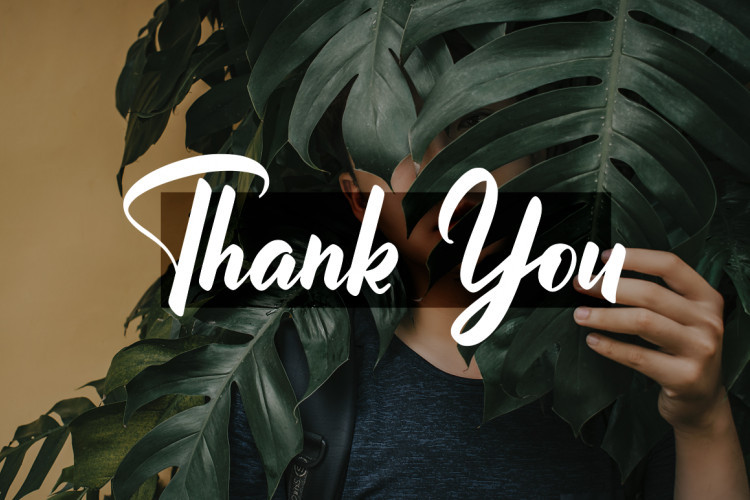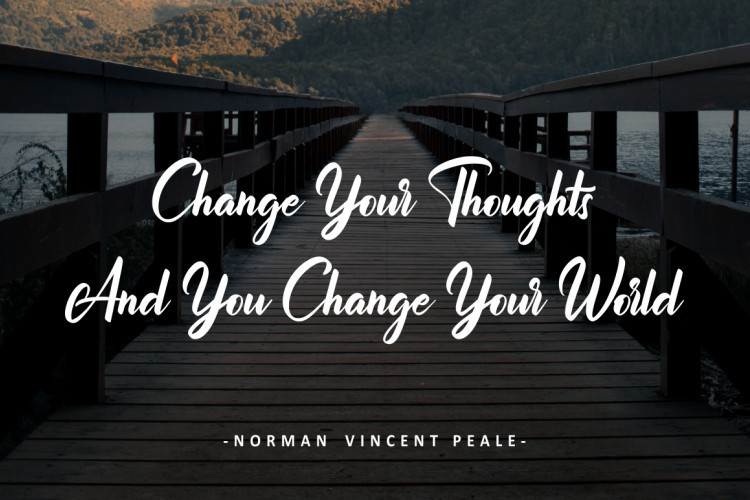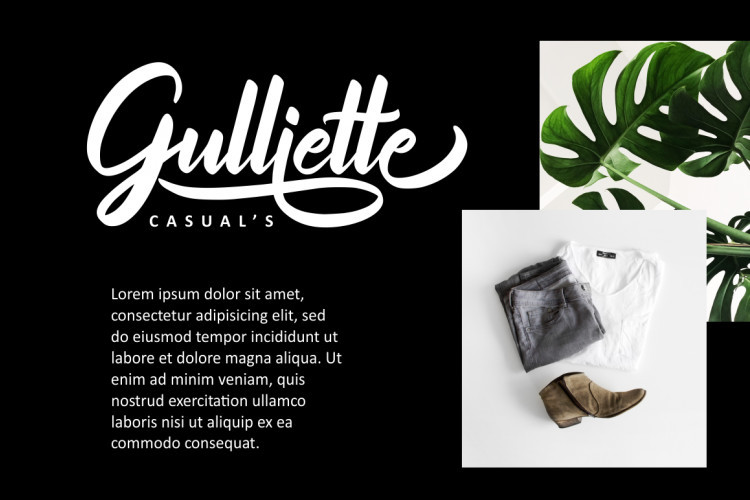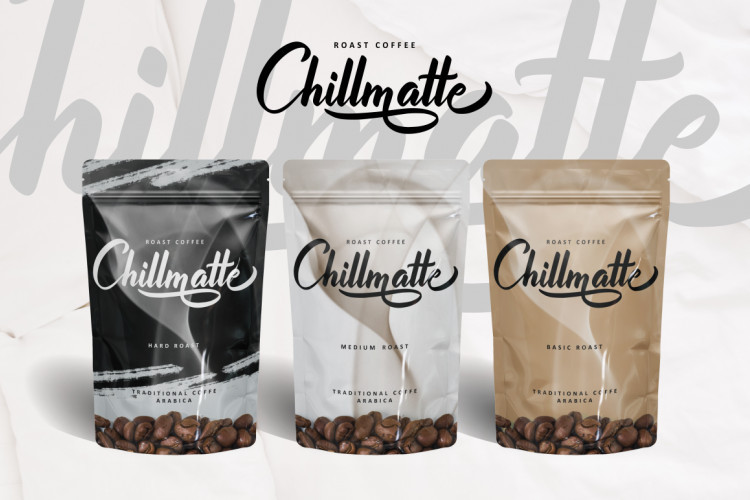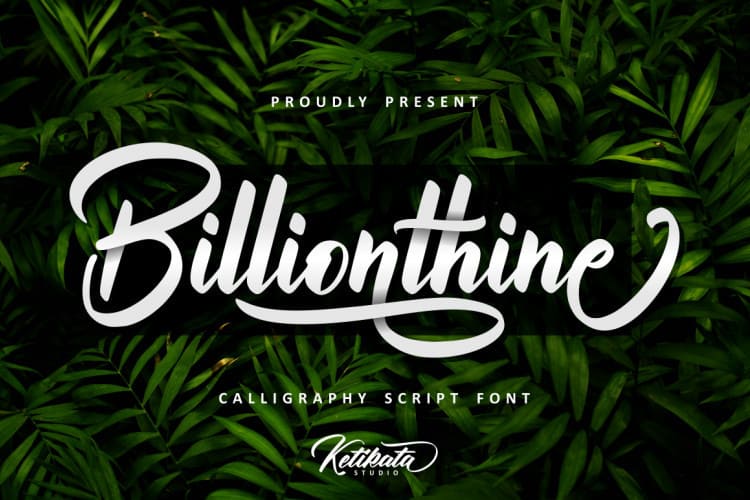
Billionthine Calligraphy Font
Billionthine Calligraphy Demo Font
Thanks for checking out Billionthine Font! A modern calligraphy typeface, If you are looking for a calligraphy font, then it is! It will make you happy. Billionthine is a bold and strong script font. carefully crafted with calligraphy. that contains many stylistic alternate and swashes that will help you to create your own customized design. this font has unique and perfect for branding (Logotype) and other design needs, like for quotes, merchandise, packaging, business card and many other project.